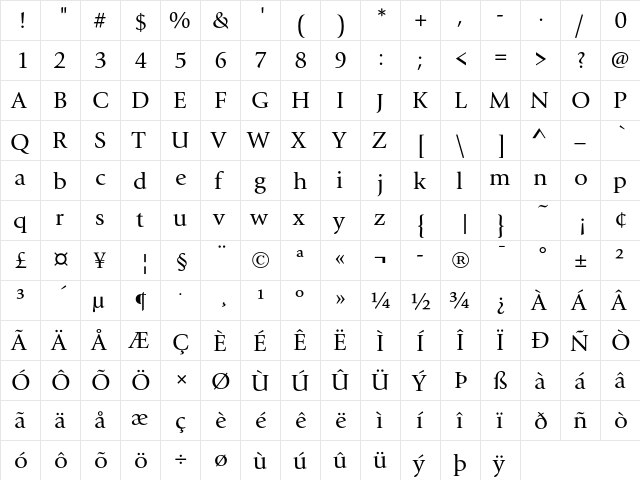
Giovanni Itc T OT Book Font Preview
Giovanni Itc T OT Book
Design Context for Giovanni Itc T OT Typeface
Giovanni Itc T OT takes a measured approach to typography — its balanced proportions and neutral character make it a reliable workhorse for both digital and print work.